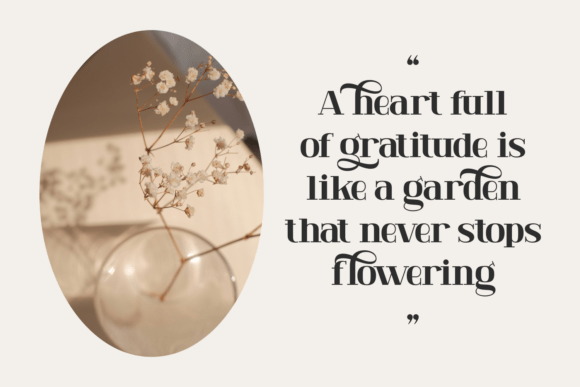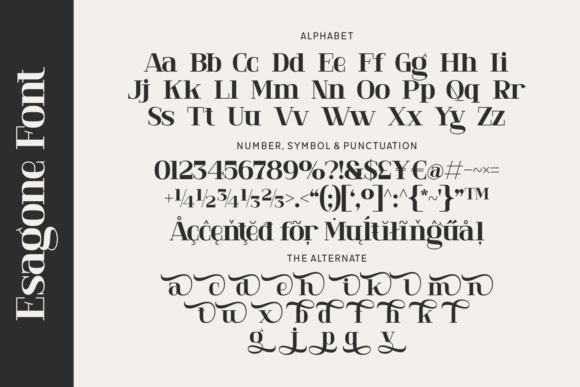
Introducing Esagone Font: Elevate Your Designs with Elegance and Sophistication
In the world of typography, a font can make or break a design. For designers and crafters seeking to elevate their projects with a touch of luxury and artistry, Esagone Font is an exceptional choice. This stylish modern serif typeface seamlessly merges clean elegance with expressive detail, making it perfect for a wide range of applications, from branding and packaging to editorial layouts and logos.
The Essence of Esagone Font
Esagone Font is characterized by its sharp, contemporary letterforms that exude a sense of sophistication and refinement. The font’s design is carefully crafted to deliver high-end quality, with graceful swashes and alternates that add a creative twist to traditional serif typography. This unique combination of modernity and elegance makes Esagone a versatile font suitable for various design projects.
Key Features of Esagone Font
- Modern Serif Typeface: Esagone’s serif design offers a fresh take on traditional typography, making it perfect for designers looking for a contemporary look.
- Clean Elegance: The font’s clean lines and precise letterforms ensure a sophisticated appearance that works well in a variety of contexts.
- Expressive Swashes and Alternates: Esagone’s swashes and alternates provide a creative outlet for designers, allowing for customized typography that can elevate a design from ordinary to extraordinary.
- Luxury and Artistry: The font’s luxurious feel makes it ideal for high-end branding, packaging, and editorial projects that require a touch of sophistication.
Applications of Esagone Font
Esagone Font’s versatility makes it suitable for a wide range of design applications. Here are some of the key areas where Esagone excels:
- Branding: Create a lasting impression with Esagone’s luxurious and elegant typography, perfect for high-end brands looking to establish a sophisticated identity.
- Packaging: Elevate your product packaging with Esagone’s refined and modern design, ensuring your product stands out on store shelves.
- Editorial Layouts: Add a touch of sophistication to your editorial projects, such as magazines, newspapers, and books, with Esagone’s elegant typography.
- Logos: Create a memorable logo with Esagone’s unique and creative letterforms, perfect for businesses looking to establish a strong brand presence.
Why Choose Esagone Font?
With so many fonts available, why choose Esagone? Here are a few compelling reasons:
- Unique Design: Esagone’s blend of modernity and elegance sets it apart from other serif typefaces, ensuring your designs stand out.
- Versatility: The font’s adaptability makes it suitable for a wide range of design applications, from digital to print.
- High-End Quality: Esagone’s luxurious feel and sophisticated design make it perfect for high-end projects that require a touch of elegance.
Esagone Font is an exceptional choice for designers and crafters seeking to elevate their projects with a touch of luxury and artistry. Its unique blend of modernity and elegance, paired with its versatility and high-end quality, make it an ideal font for a wide range of design applications. Whether you’re working on branding, packaging, editorial layouts, or logos, Esagone Font is sure to deliver sophisticated and refined typography that impresses.